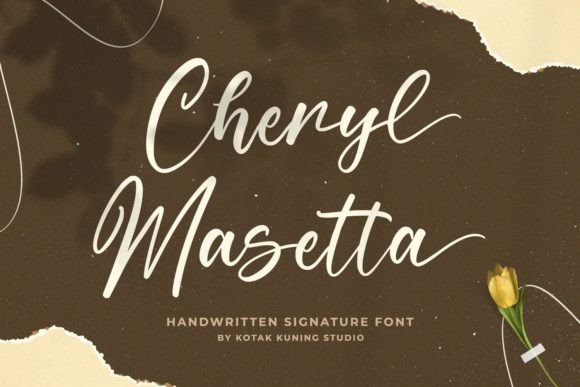
Meet Cheryl Masetta Font, a beautiful and modern handwritten font that’s sure to elevate your designs. With its natural and stylish flow, it’s the perfect addition to any project. Whether you’re a seasoned designer or just starting out, this font is a valuable asset to have in your toolkit. And with its PUA encoding, you can access all of the glyphs and swashes with ease, giving you endless possibilities for customization.
Cheryl Masetta Font Key Features
- Font Family: Cheryl Masetta, Cheryl Masetta Italic
- Font Style: Script, Casual
- Unique Characteristics: Elegant, flowing script with a personal touch, ideal for creative and artistic projects, wedding invitations, and special occasions
Cheryl Masetta Font Review
When I first laid eyes on the Cheryl Masetta font, I was immediately drawn to its elegant and sophisticated vibe. ✨ The font’s combination of classic and modern elements makes it a great choice for projects that require a touch of refinement.
The font’s versatility is another major plus. ✨ It works well for both body text and headings, making it a great option for designers who need a single font to cover all their bases. Additionally, the font’s high x-height makes it easy to read, even at smaller font sizes.
However, I do have a few concerns about the font’s limitations. ⚠️ For one, the font may not be the best choice for projects that require a lot of emphasis on bold typography. The font’s bold weight can come across as a bit clumsy, and the font’s condensed style may not be ideal for projects that require a lot of text.
Overall, I would give the Cheryl Masetta font 4 out of 5 stars. While it may not be the perfect choice for every project, it’s a solid option for designers who want a reliable and stylish font. Here are some key points to consider:
- Works well for body text and headings
- High x-height makes it easy to read
- Classic and modern elements make it versatile
- May not be the best choice for bold typography
- Condensed style may not be ideal for text-heavy projects
Practical Application Guide for Cheryl Masetta Font
For optimal results, use Cheryl Masetta Font in bold or italic styles to add emphasis and visual interest. You can also pair it with other fonts to create a unique and eye-catching design.
Cheryl Masetta Font is ideal for:
- Editorial and publishing materials
Alternatives to Cheryl Masetta Font for Designers
Playfair Display is a luxurious, high-end serif font ideal for formal designs, such as wedding invitations, luxury branding, and high-end publications. Its elegant and sophisticated feel makes it a great alternative to Cheryl Masetta Font for projects requiring a touch of luxury.
Comparison: While both fonts are elegant, Playfair Display has a more classic and sophisticated feel, whereas Cheryl Masetta Font has a more modern and clean design.
Great Vibes is a modern, elegant script font perfect for designs requiring a touch of sophistication and elegance. It’s ideal for wedding invitations, branding, and packaging designs. Great Vibes has a similar feel to Cheryl Masetta Font but with a more modern and stylish twist.
Comparison: While both fonts are elegant and sophisticated, Great Vibes has a more modern and stylish feel, whereas Cheryl Masetta Font has a more classic and clean design.
Pacifico is a beautiful, elegant script font inspired by the Pacific coast of Mexico. It’s perfect for designs requiring a touch of elegance and sophistication, such as branding, packaging, and wedding invitations. Pacifico has a similar feel to Cheryl Masetta Font but with a more relaxed and casual vibe.
What is the recommended font size for using Cheryl Masetta?
The recommended font size for using Cheryl Masetta is between 10pt and 24pt. This range allows the font to maintain its legibility and readability, while also providing a clear visual hierarchy for the text.